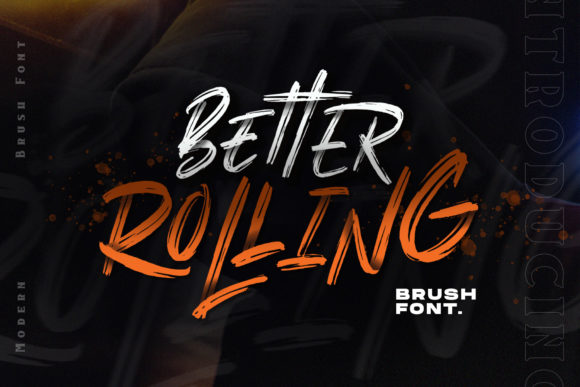
Better Rolling Font: Elevate Your Designs with a Bold Dry Brush Script
Are you tired of using the same old fonts in your designs? Look no further than the Better Rolling font, a stunning script font that adds a strong and distinct vibe to any project. Painted with a bold dry brush, this font is perfect for designers and crafters looking to make a statement.
The Unique Characteristics of Better Rolling Font
Better Rolling is a detailed and bold script font that stands out from the crowd. Its bold dry brush texture gives it a rough, organic feel that’s perfect for creating unique and eye-catching designs. The font’s script style is elegant and sophisticated, making it ideal for a wide range of projects, from branding and advertising to packaging and signage.
What Makes Better Rolling Font So Versatile?
One of the things that sets Better Rolling apart from other fonts is its versatility. The font’s bold and detailed style makes it perfect for use in a variety of contexts, from large-scale signage and billboards to smaller-scale applications like business cards and social media graphics.
Whether you’re looking to create a bold and eye-catching headline or a more subtle and sophisticated body of text, Better Rolling has got you covered. The font’s dry brush texture also gives it a tactile, hand-crafted feel that’s perfect for designs that require a more personal touch.
How to Use Better Rolling Font in Your Designs
- Pair it with a simple font: Better Rolling is a bold and attention-grabbing font, so it’s best to pair it with a simpler font that won’t compete for attention. A clean sans-serif font like Arial or Helvetica is a great choice.
- Use it for headlines: Better Rolling is perfect for headlines and titles, where its bold and attention-grabbing style can really shine.
- Experiment with colors: The dry brush texture of Better Rolling looks great in a variety of colors, from bold and bright to more muted and subtle.
The Benefits of Using Better Rolling Font
- Unique and distinctive: Better Rolling is a truly unique and distinctive font that will help your designs stand out from the crowd.
- Highly versatile: The font’s bold and detailed style makes it perfect for use in a wide range of contexts, from large-scale signage to smaller-scale applications.
- Easy to read: Despite its bold and attention-grabbing style, Better Rolling is still highly legible and easy to read, even at smaller sizes.
- Graphic designers: Better Rolling is a great choice for graphic designers who are looking to create bold and eye-catching designs for their clients.
- Sign makers: The font’s bold and attention-grabbing style makes it perfect for use in signage and billboards.
- Crafters: Better Rolling is also a great choice for crafters who are looking to add a personal touch to their handmade projects.
In conclusion, Better Rolling is a stunning script font that adds a strong and distinct vibe to any design. Its bold dry brush texture and elegant script style make it perfect for a wide range of projects, from branding and advertising to packaging and signage. Whether you’re a designer, crafter, or simply someone who loves to create, Better Rolling is a great choice for anyone looking to elevate their designs and make a statement.